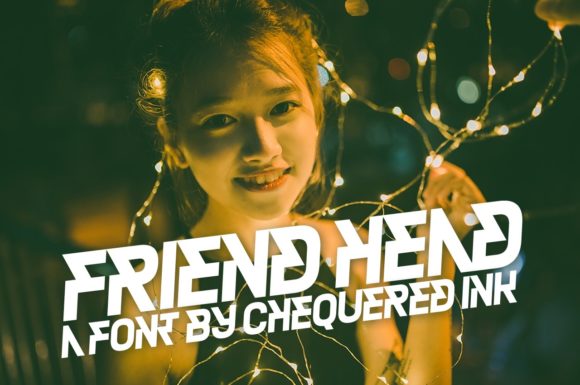
Welcome to the realm of Friend Head, an extraordinary display font that will ignite your creativity and transform your designs into captivating masterpieces.
Picture this: your words dancing across the page in a symphony of sharp angles and sleek curves, capturing attention with every stroke. Friend Head's techno aesthetic is a perfect match for tech-savvy projects, futuristic branding, and designs that demand a cutting-edge flair.
Crafted by the masters of typography at Chequered Ink, Friend Head is more than just a font—it's a gateway to a world of limitless possibilities. Unleash your imagination and watch as your designs take on a life of their own, leaving a lasting impression on all who behold them.
Don't settle for ordinary fonts that blend into the background. Embrace the power of Friend Head and let your designs stand out as beacons of innovation and style. Join the ranks of design visionaries who have discovered the transformative potential of this typographic masterpiece.
Each character in Friend Head is a work of art, meticulously designed to evoke a sense of boldness and modernity. Whether you're crafting eye-catching headlines, compelling logos, or immersive digital experiences, Friend Head will elevate your designs to new heights.
Why limit yourself to ordinary fonts when you can possess the power of Friend Head? Download it today and unlock a world of creative possibilities. Let your designs shine with the brilliance of a thousand stars, leaving an unforgettable mark on the hearts and minds of your audience.